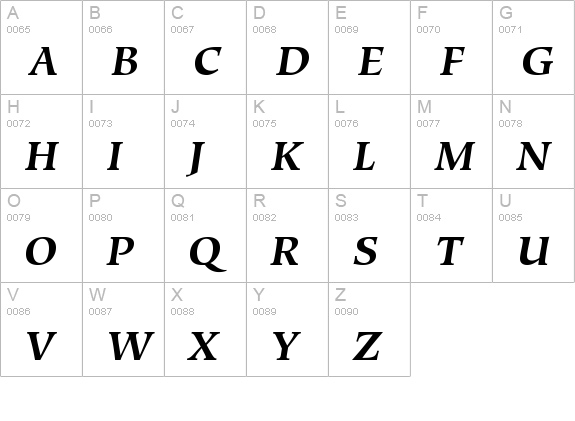
Hiroshige Bold Italic is a strong, high-contrast, italic variant in the Hiroshige typeface family \xE2\x80\x94 well suited to headlines, attention-grabbing titles, and strong calls-to-action.
Introducing Hiroshige Bold Italic font, a versatile and eye-catching typeface that effortlessly combines boldness with elegance. With its strong strokes and stylish slant, this font is perfect for making a statement in your designs. Whether you're creating a modern logo, designing a poster, or crafting a unique website, Hiroshige Bold Italic will add a touch of sophistication and flair. What's even better is that Hiroshige Bold Italic font is completely free to download at FontsMarket.com. You can easily access this striking typeface and use it in your projects without any cost. Don't miss out on the opportunity to enhance your designs with the bold and italic charm of Hiroshige. Download it now and see how it transforms your creations!